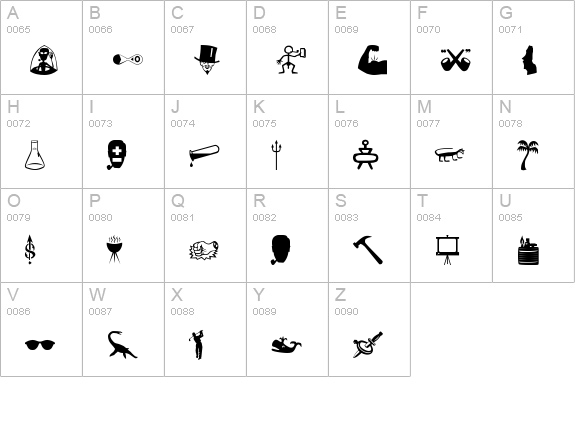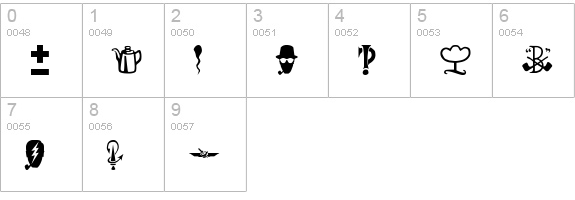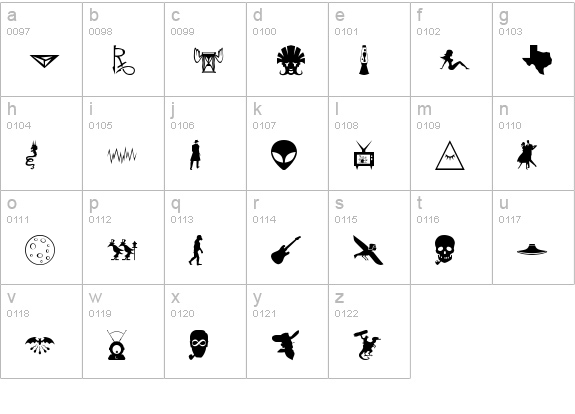
BOBCO 7 Font Details
Introducing BOBCO 7 font, a versatile and modern typeface that will elevate your design projects to new heights. This contemporary font features clean lines and a sleek appearance, making it perfect for a wide range of applications including branding, advertising, packaging, and more. With its unique character shapes and stylish aesthetic, BOBCO 7 font is sure to make a statement and leave a lasting impression. What's even better is that BOBCO 7 font is available for free download at FontsMarket.com. Yes, you read that right - this high-quality font can be yours at no cost, allowing you to enhance your work without breaking the bank. Don't miss out on this fantastic opportunity to add BOBCO 7 font to your font library and take your designs to the next level. Download it today and let your creativity shine!